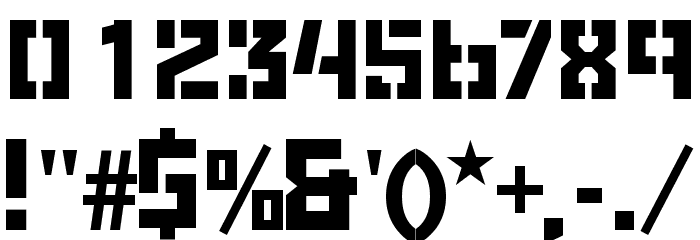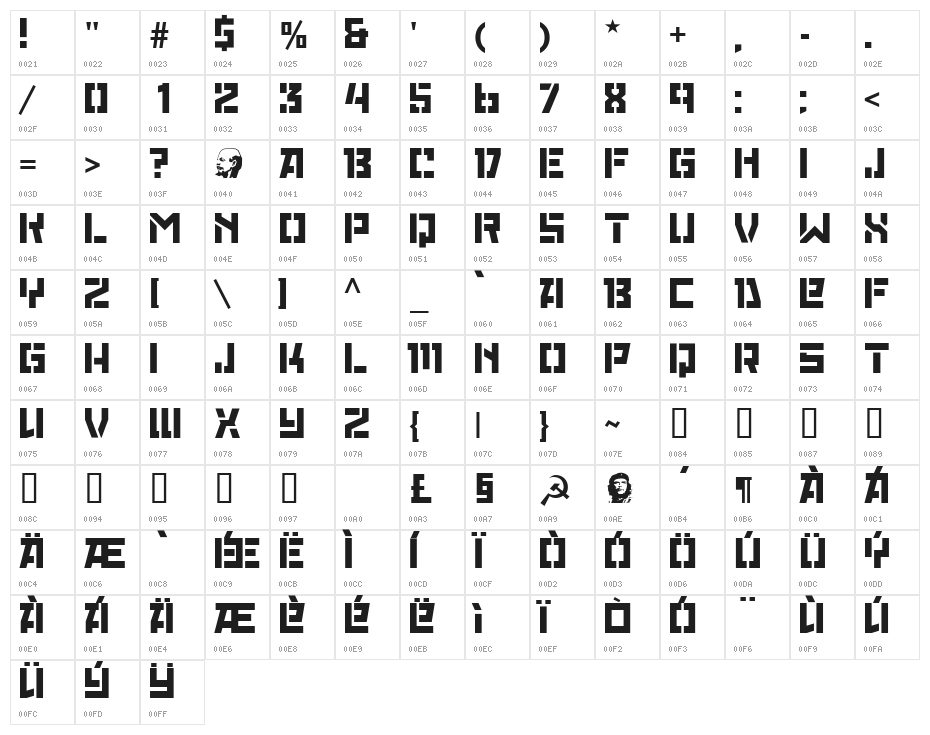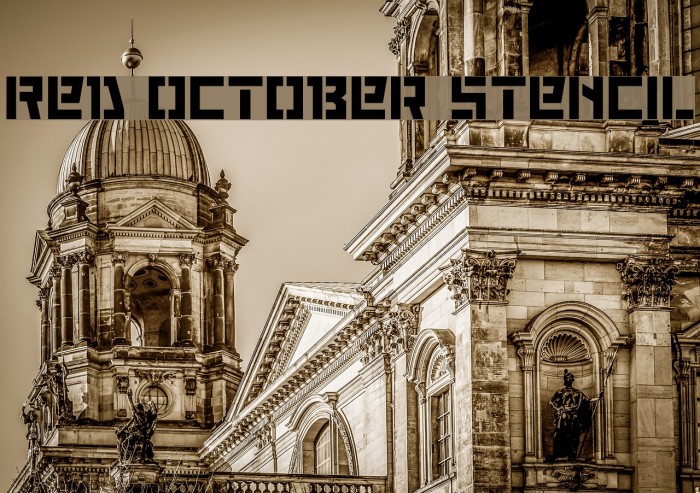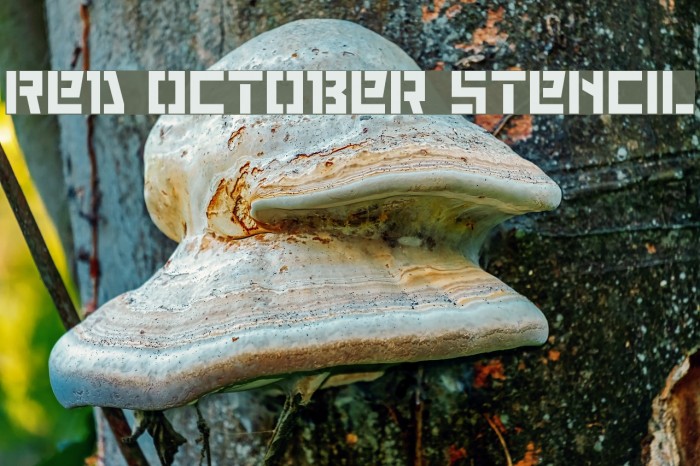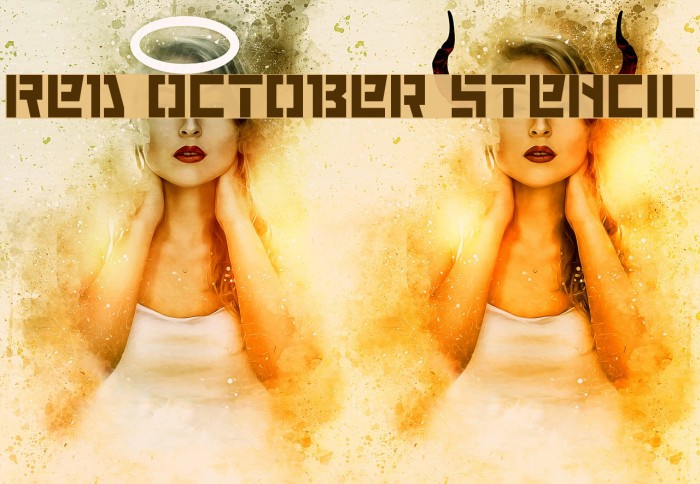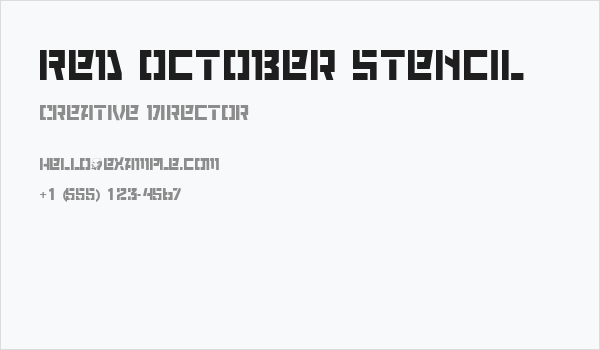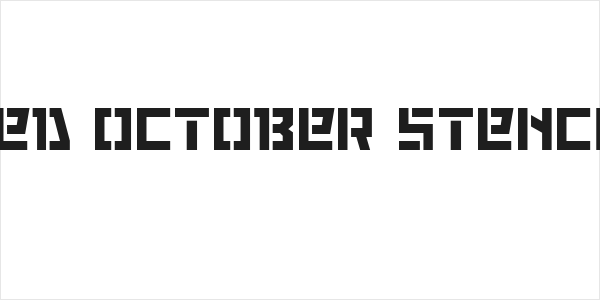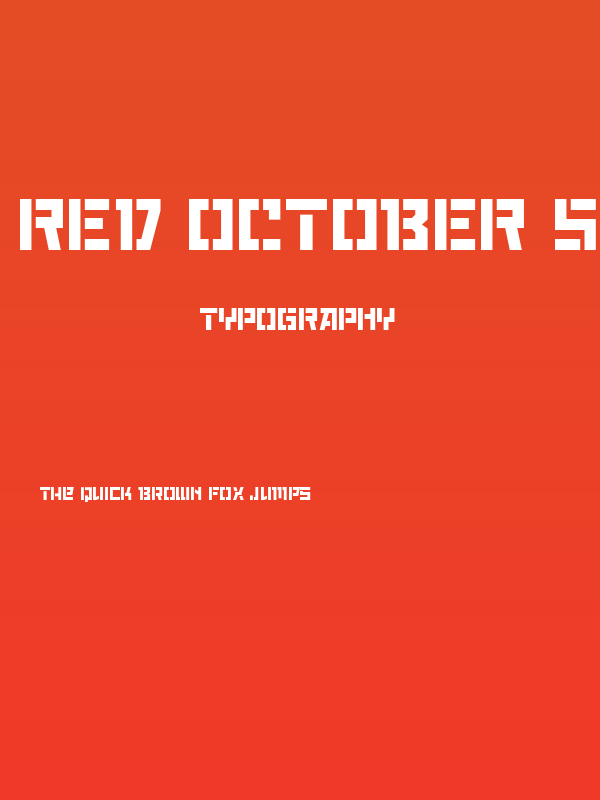
Red October Stencil Font
Red October Stencil Description
This font features a bold, stencil-like design with strong geometric shapes and sharp angles. Each character is constructed with solid, blocky forms, creating a sense of strength and industrial appeal. The uppercase and lowercase letters maintain a consistent style, with cut-out sections that enhance the stencil effect. Numbers and special characters follow the same robust design, ensuring uniformity across all glyphs. The font's distinct appearance makes it ideal for impactful and attention-grabbing designs.
| Overall Style | Modern, Industrial |
| Proposed Projects | Ideal for military-themed designs, posters, signage, and branding that requires a bold, industrial look. |